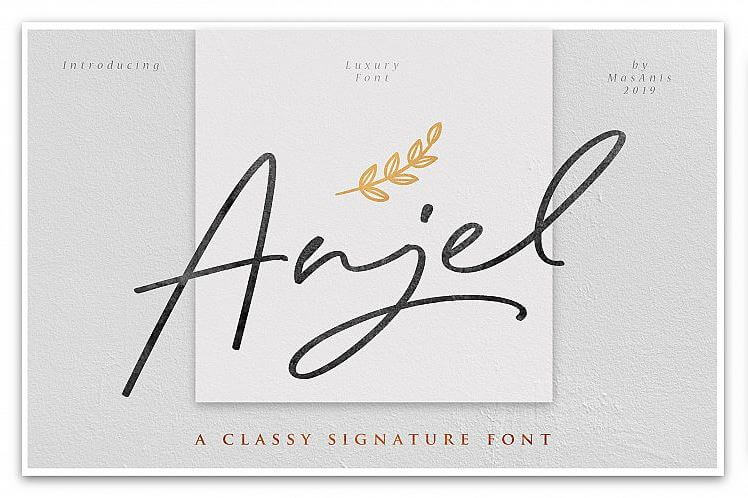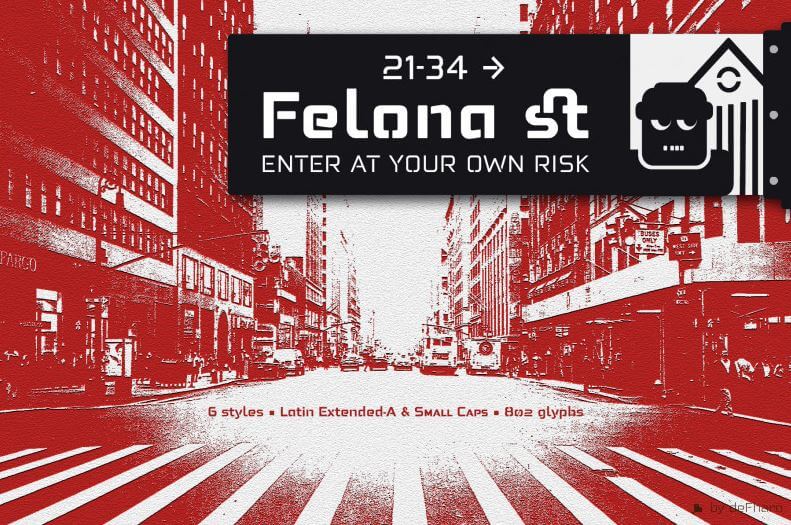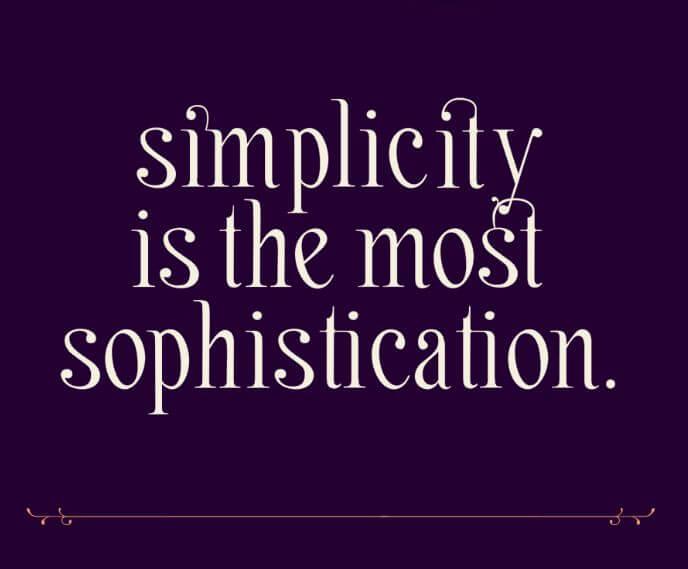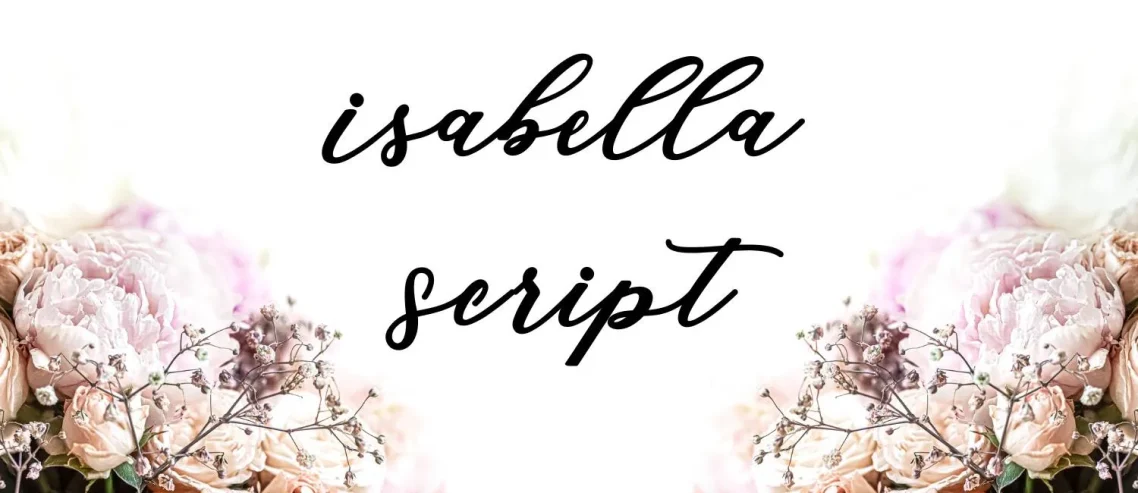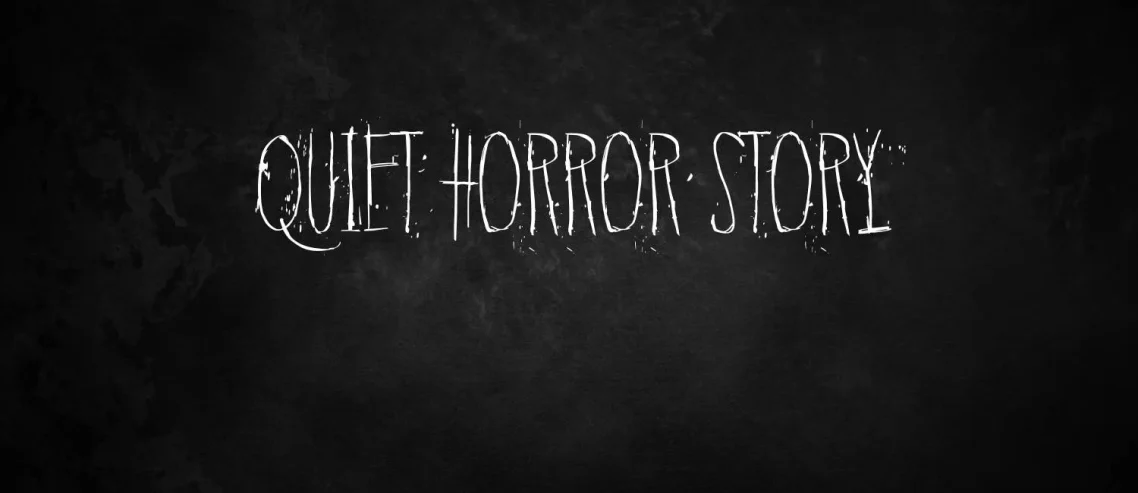
Nerea Art Nouveau Font
Nature is the queen within the art nouveau or simply Nerea Art Nouveau Font and it highlights the obviously it is intertwined in different forms. The shapes are sinuous, floral and modern, and from that know-how. It comes to this new typographic undertaking big john. This font can be very a laugh and has robust …
Isabella Script Font Free Download
Isabella Script Font is an elegant and cursive typeface that adds a touch of romance and sophistication to your text. Its flowing characters make it a popular choice for wedding invitations, branding, or any project that requires a handwritten and graceful script. Isabella Script Font is often available in TrueType (.ttf) and OpenType (.otf) formats, …
Felona Neo Stencil Fonts
Felona Neo Stencil Fonts is a very nice font in the field of typography. It is a neo stencil font which comes in 6 different styles and used in all different techniques. You can easily use this type of fonts in your works and applications. As we know the carneval font typography has a large …
Quiet Horror Story Font Free Download
Quiet Horror Story Font is a spooky and atmospheric typeface designed for horror-themed projects. Its eerie characters add a chilling touch to the text, making it suitable for Halloween materials, horror novels, or any design that aims to evoke a sense of suspense Quiet Horror Story Font is often available in TrueType (.ttf) and OpenType …
Anjel Signature Font
Anjel Signature Font the new and classic font style. This is a fresh and new handwritten font. This font style has a classy touch in itself which made classical poetry looks too good and fresh. Anjel signature font is designed by the great artist Mas Anis. Anjel was made with the heart of have heart to …
Engravers MT Font Free Download
Engravers MT Font is a classic and elegant typeface inspired by traditional engraving styles. Its refined characters make it suitable for projects that require a touch of sophistication, such as formal invitations, certificates, or any design that demands a timeless and graceful look. Engravers MT Font is often available in TrueType (.ttf) and OpenType (.otf) …